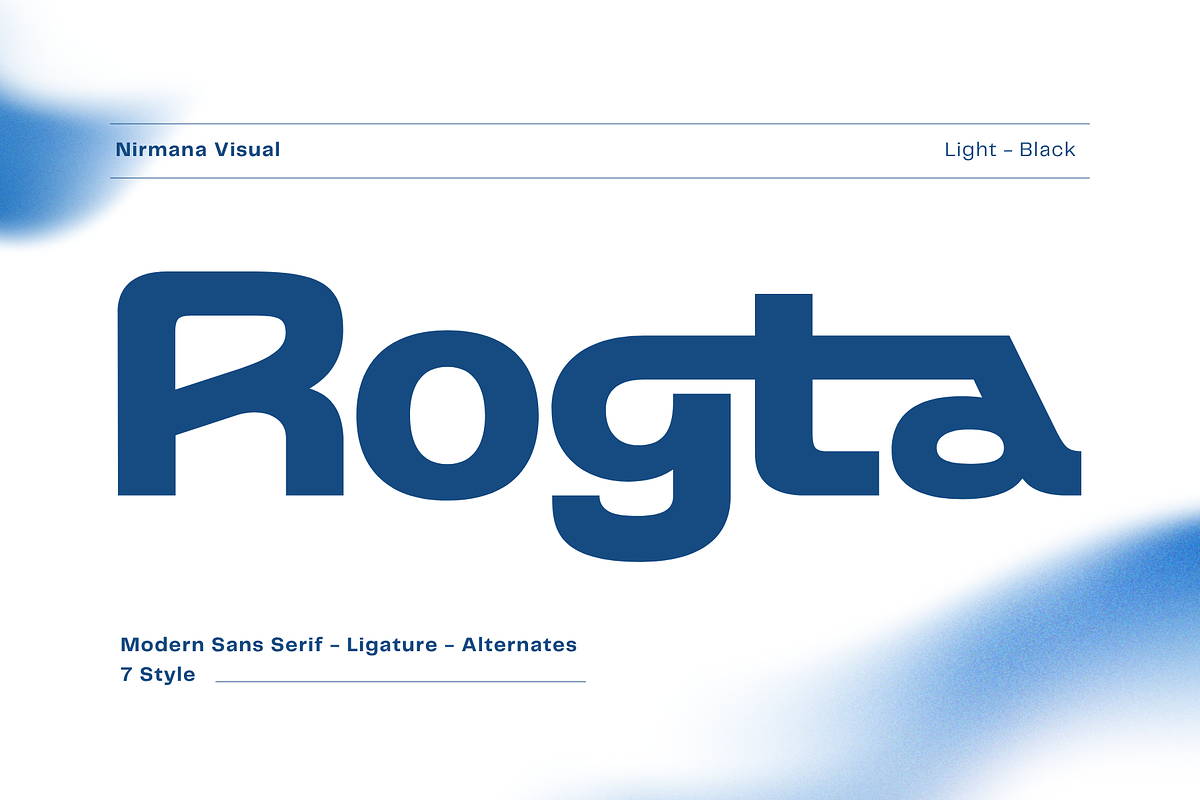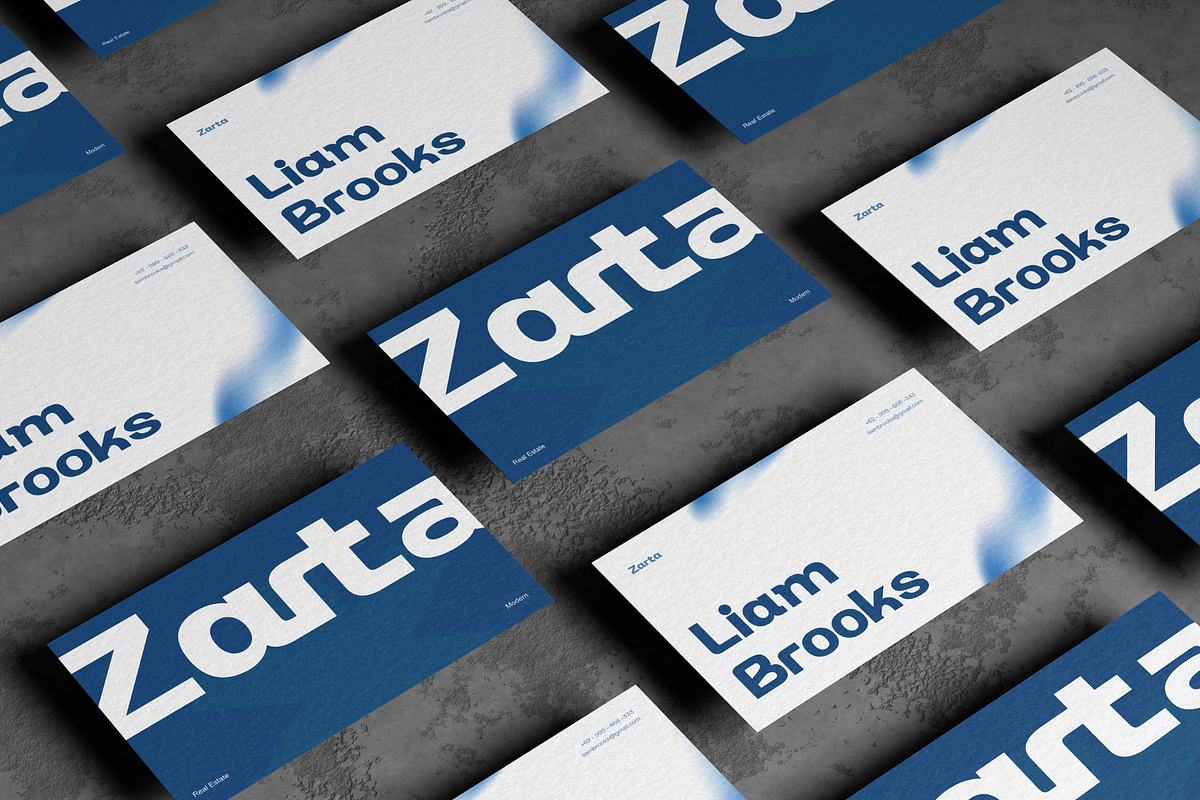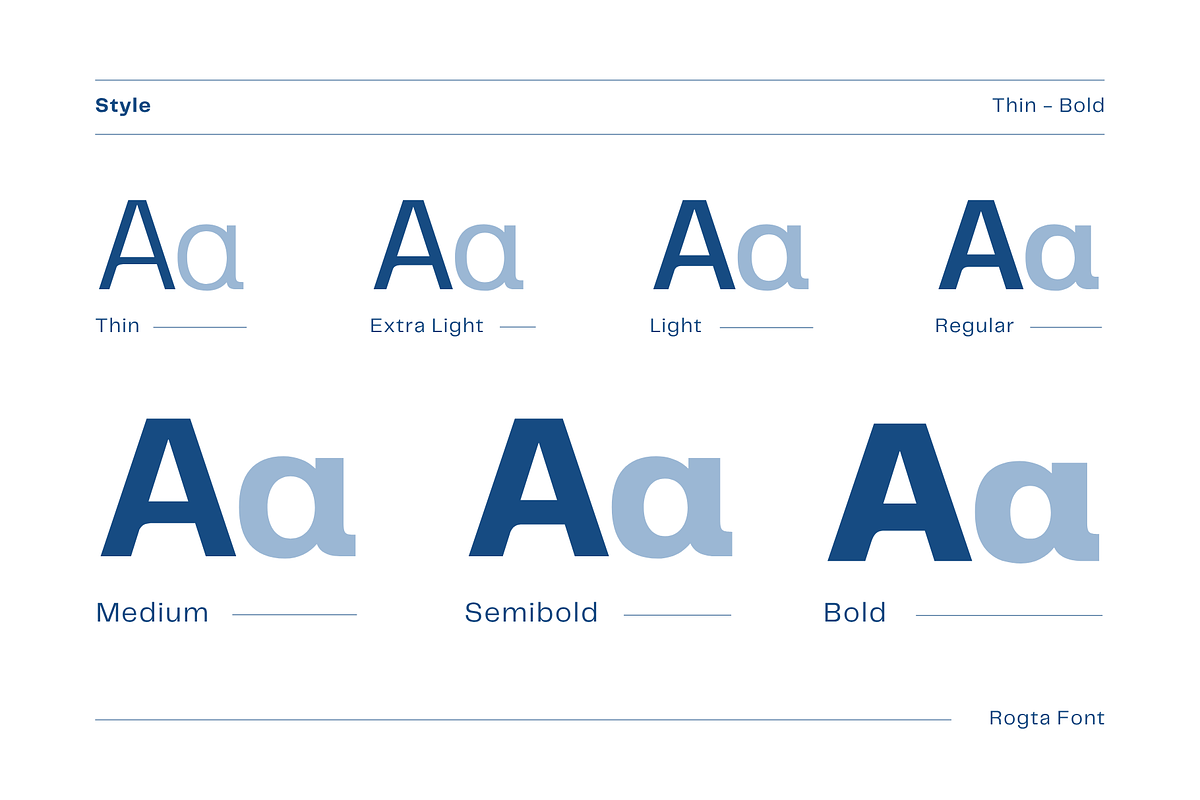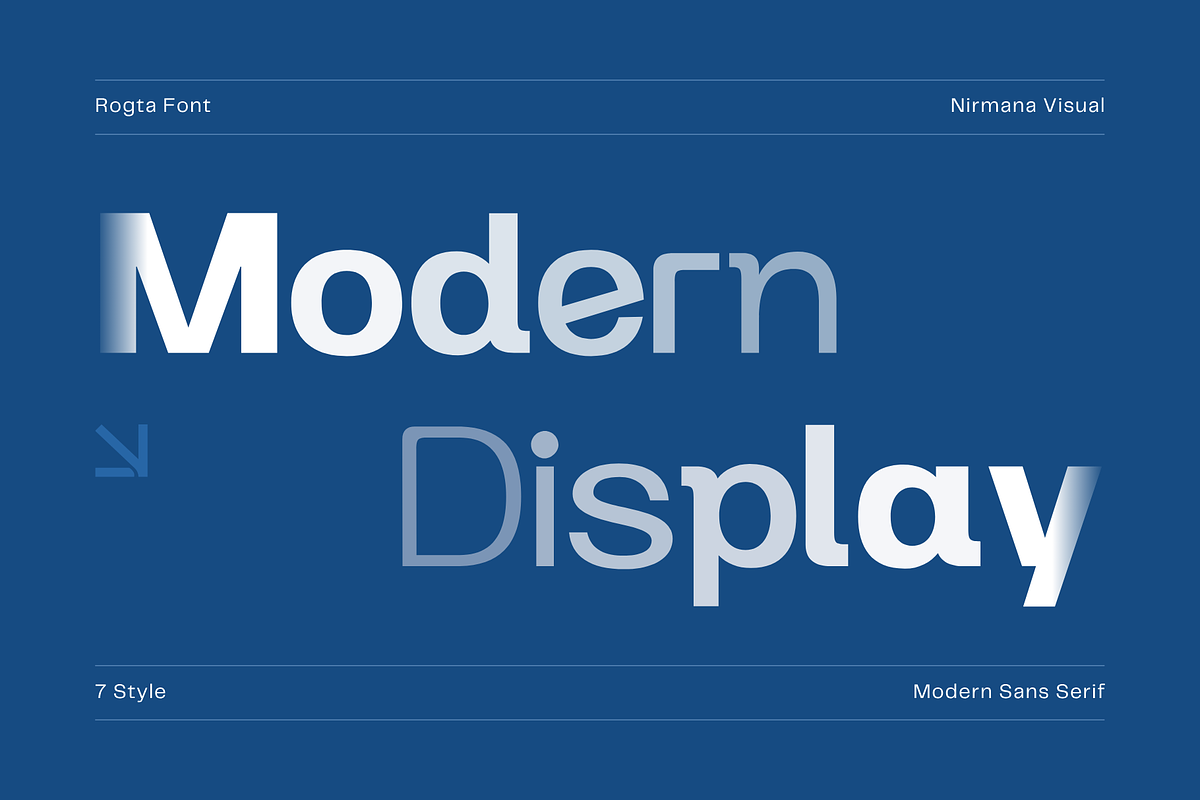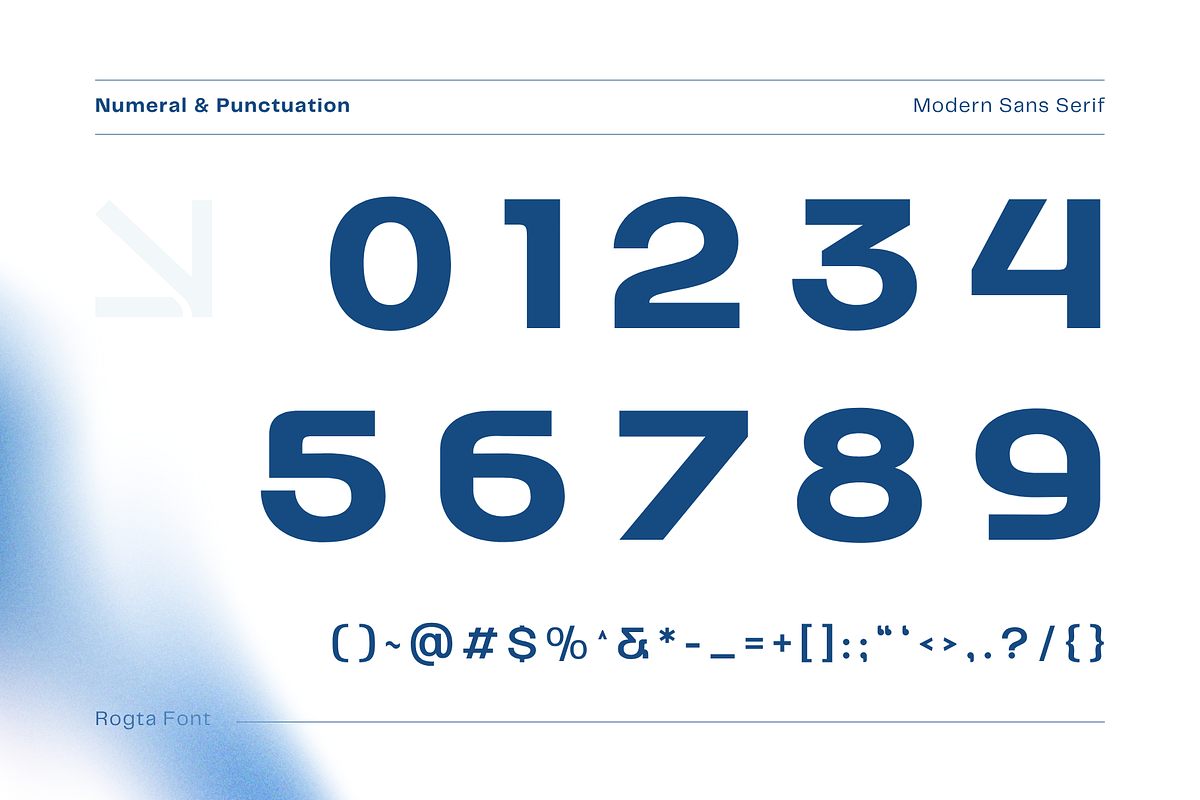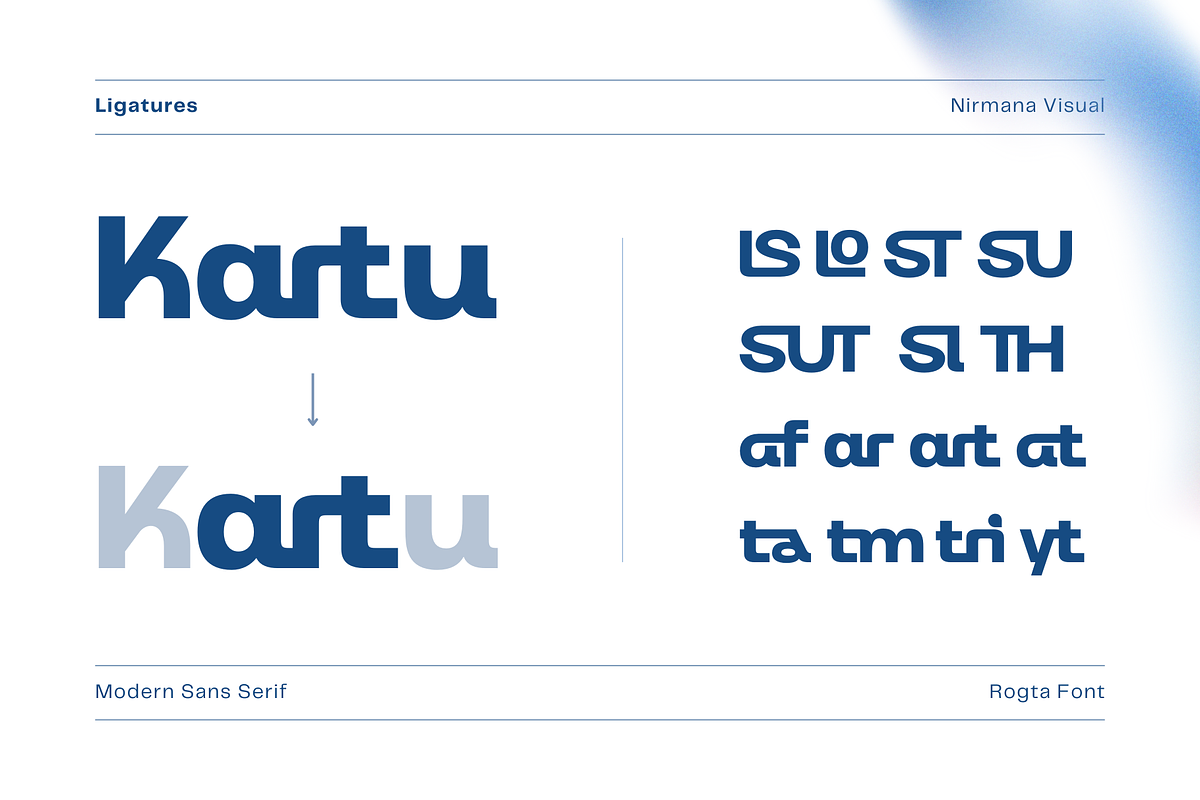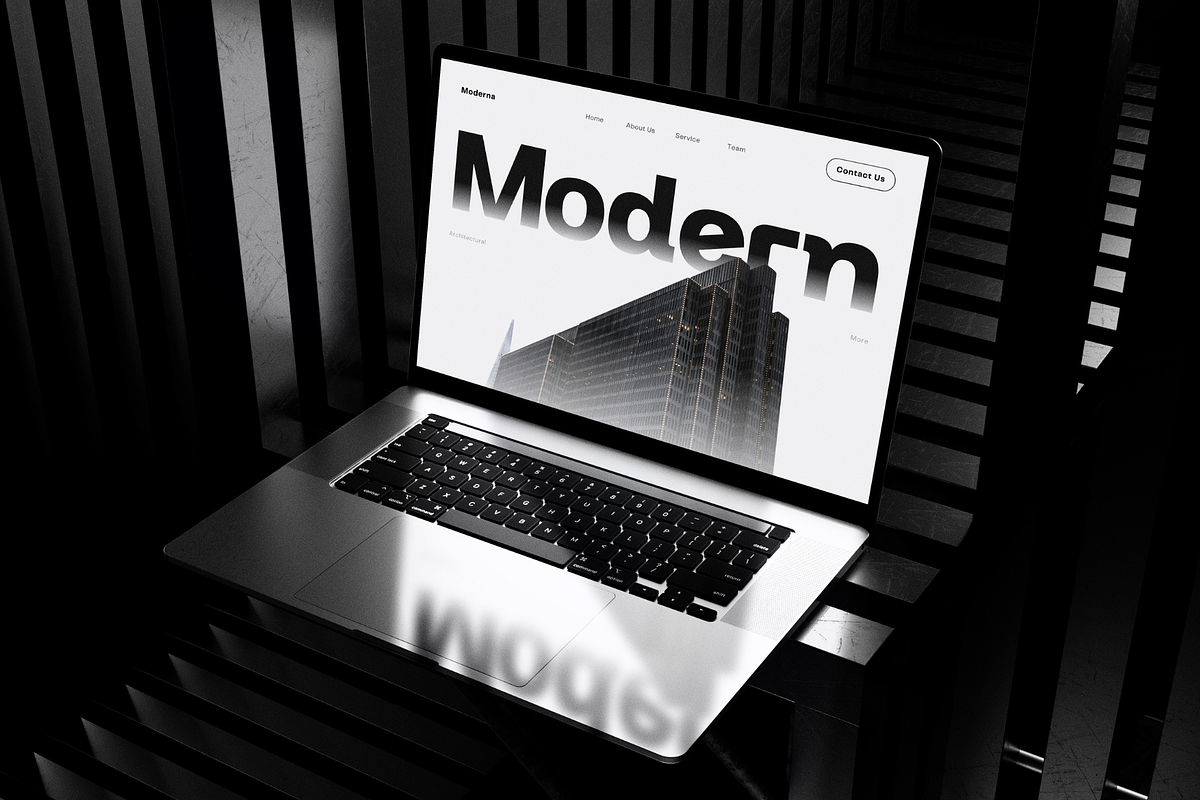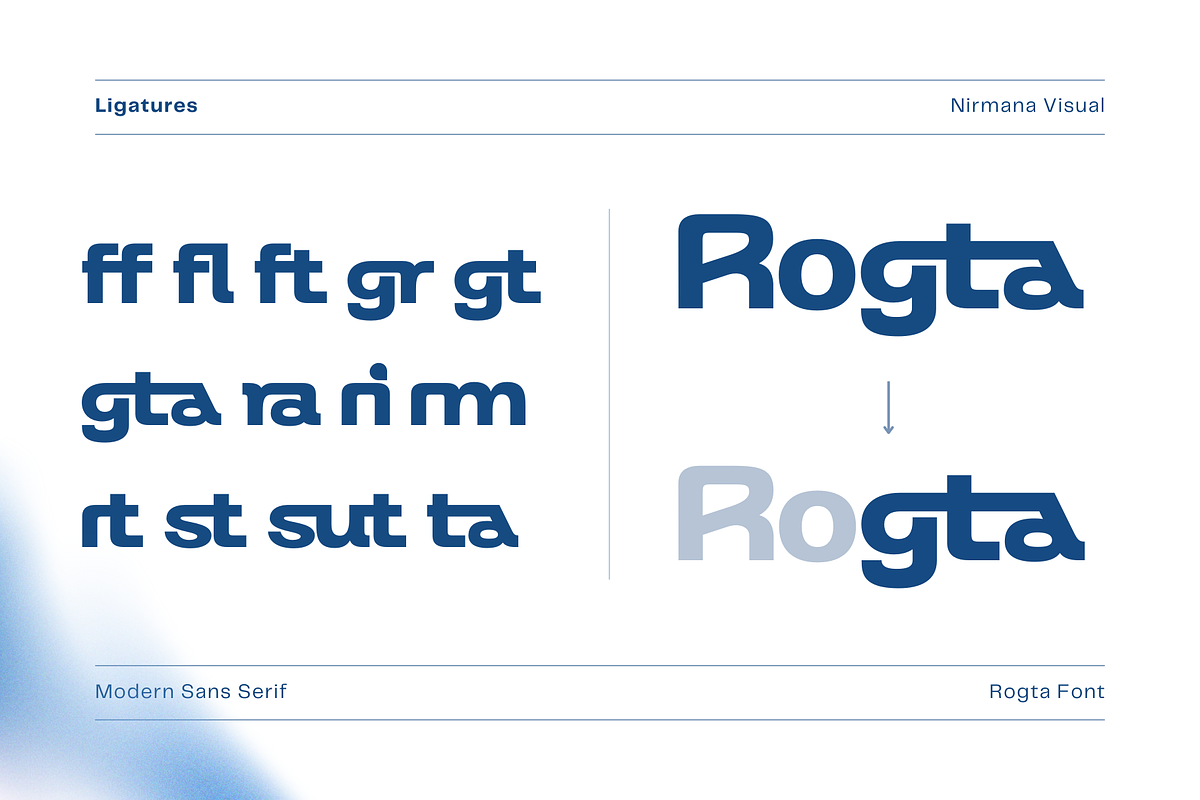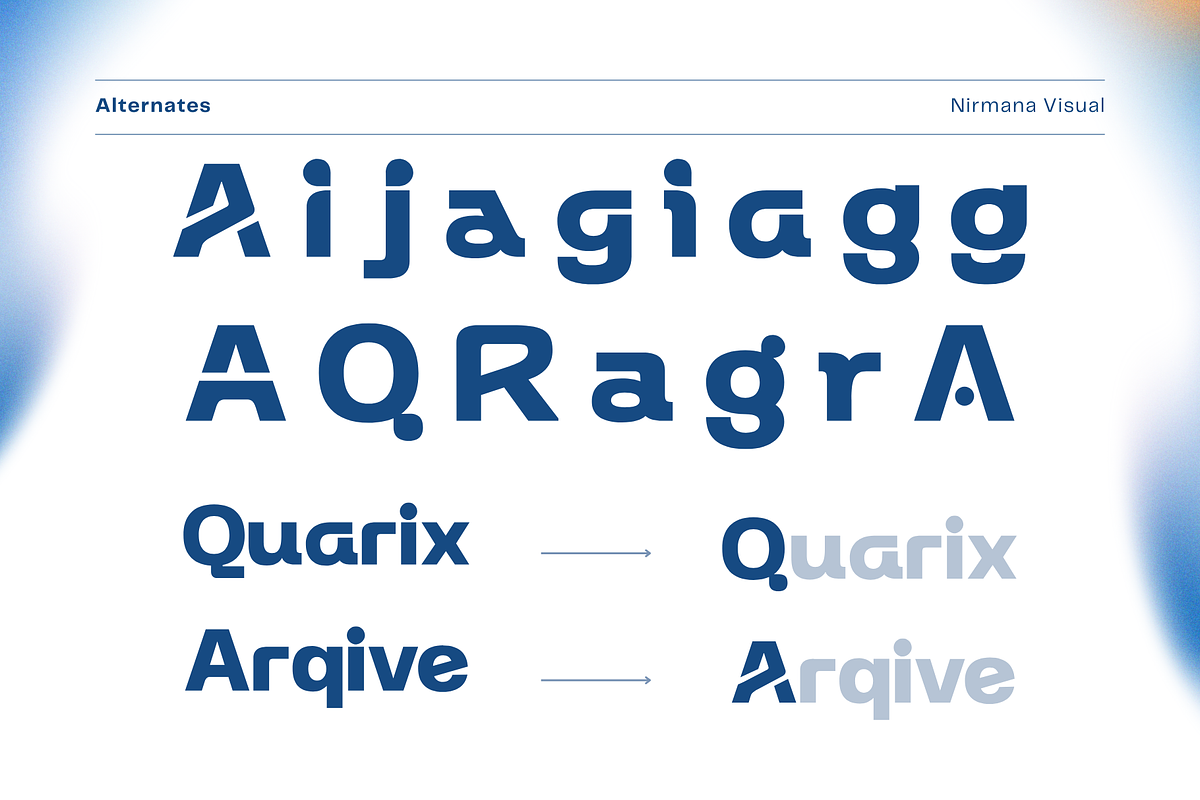
Modern Family Sans Serif - Rogta
Rogta offers beautiful typographic harmony for a diversity of design projects, including logos & branding, social media posts, advertisements & product designs.
What you get : Seven Font Styles From Thin until Bold
- Thin
- Extralight
- Light
- Medium
- Semibold
- Bold